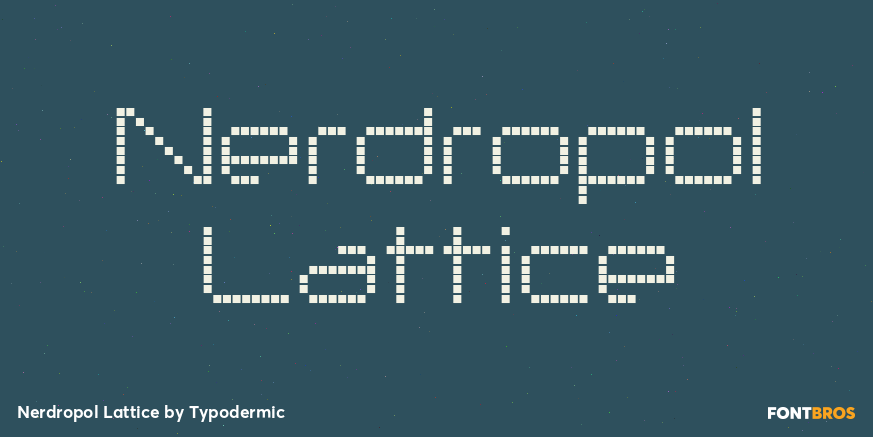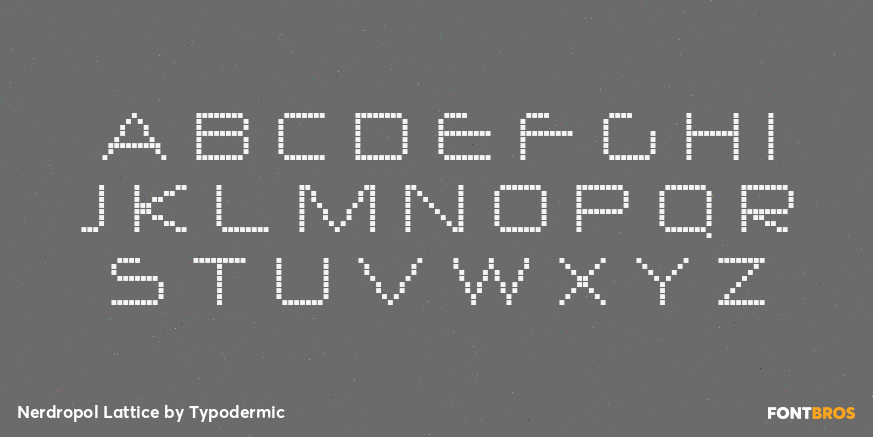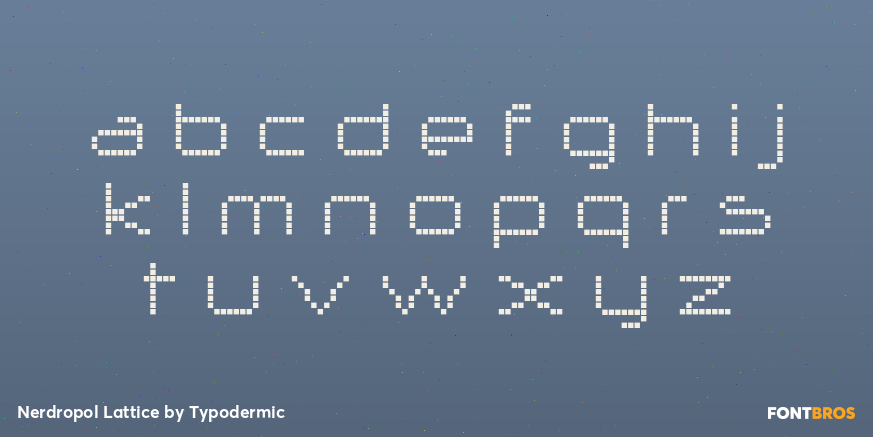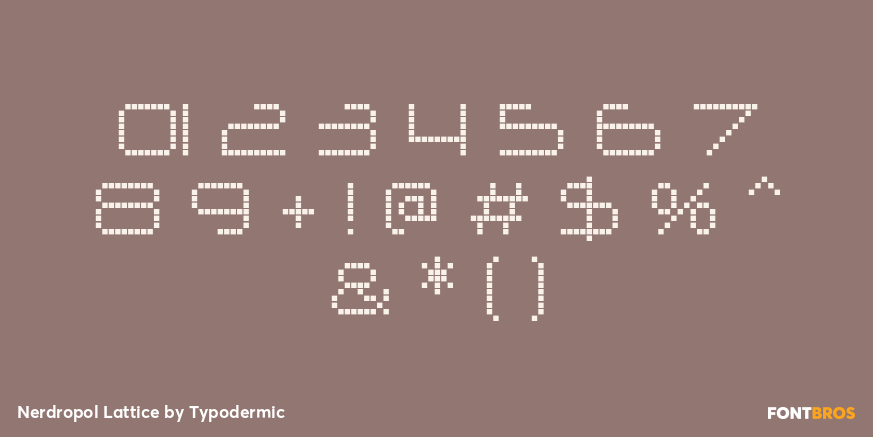
Nerdropol Lattice
Nerdropol Lattice traces the family’s letterforms with separated square blocks, leaving visible channels of space between the modules. The open construction resembles a structural lattice or a low-resolution architectural grid, giving the same narrow geometry a lighter, more ventilated texture than Nerdropol Grid.
Use Nerdropol Lattice for media-façade identities, modular-architecture presentations, exhibition-zone names, programmable-light projects, and contemporary technology posters. Set it large enough for the gaps to remain deliberate rather than looking like broken printing. Solid Nerdropol Regular works well for compact supporting text, while Grid can supply a denser companion for emphatic names or numbers.